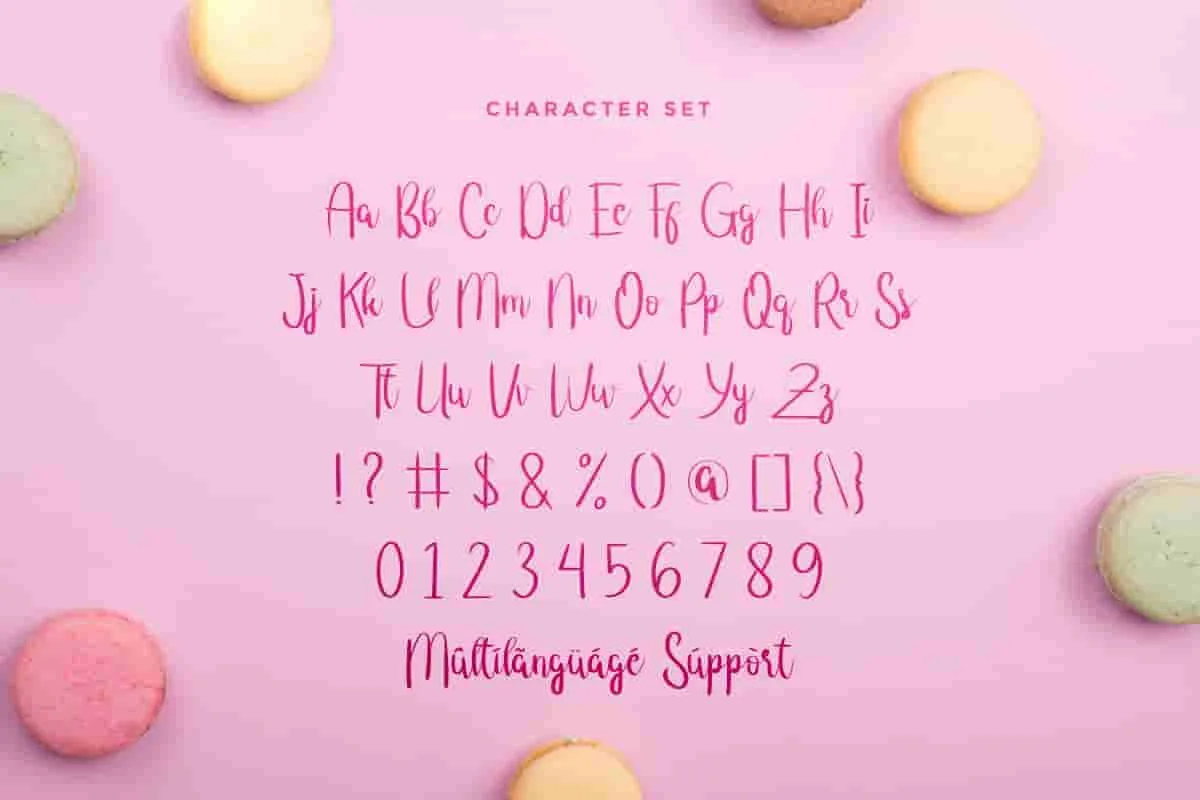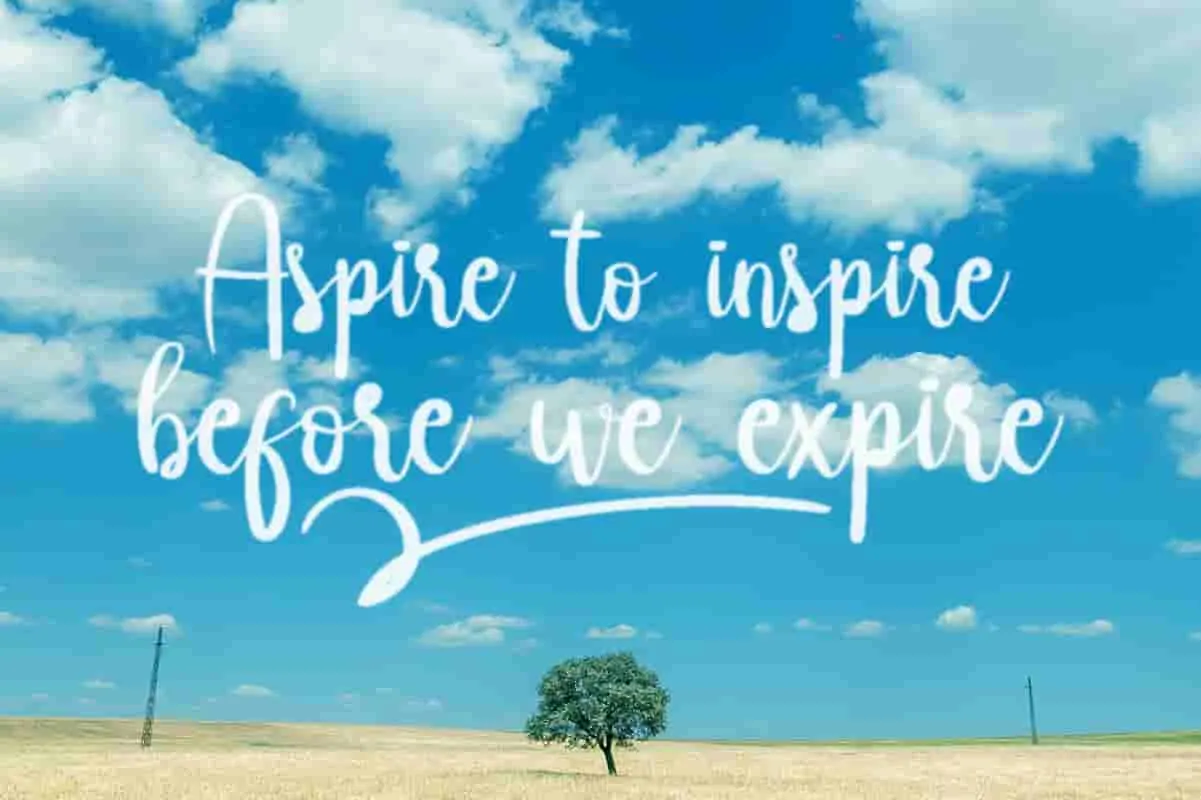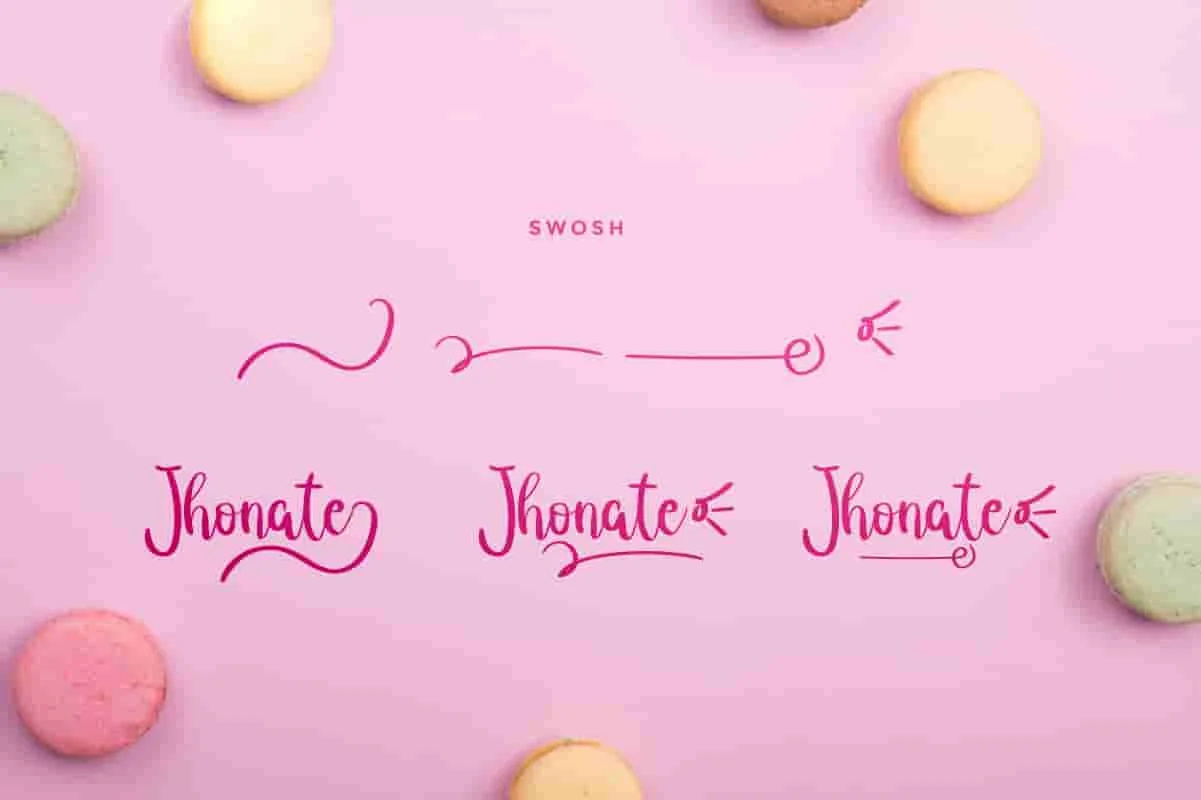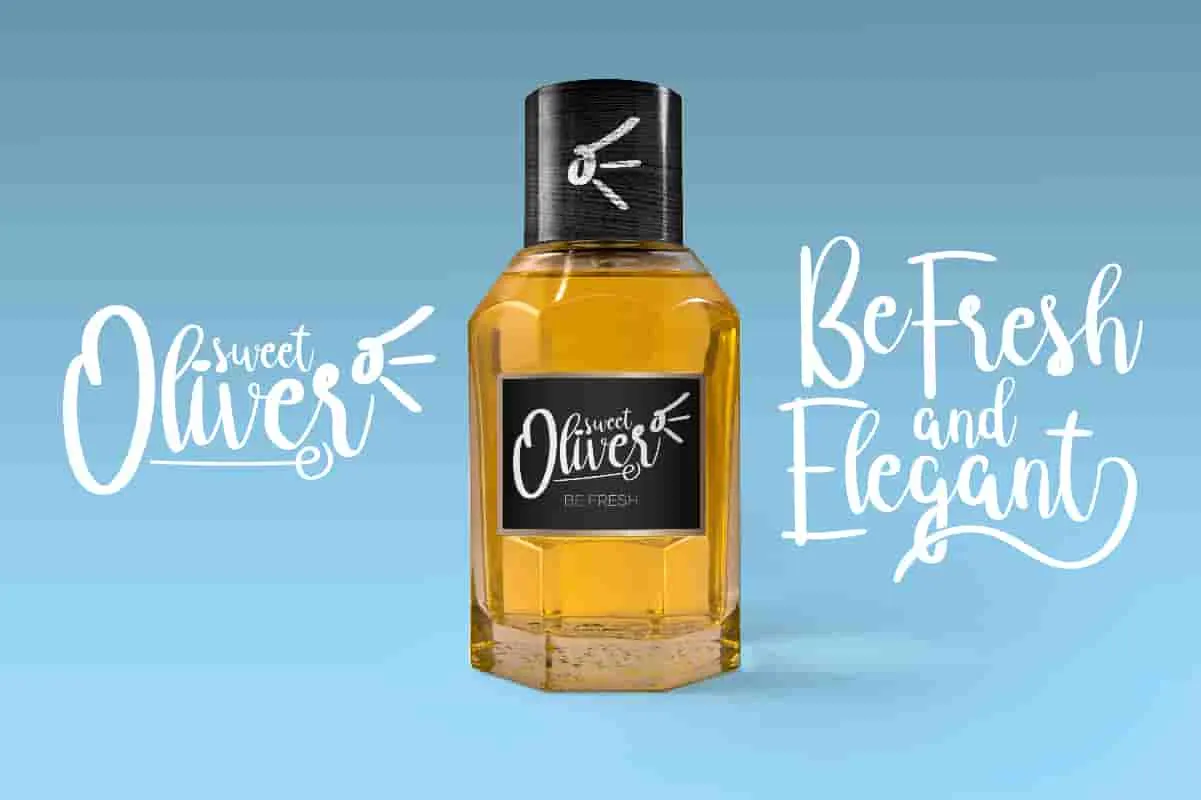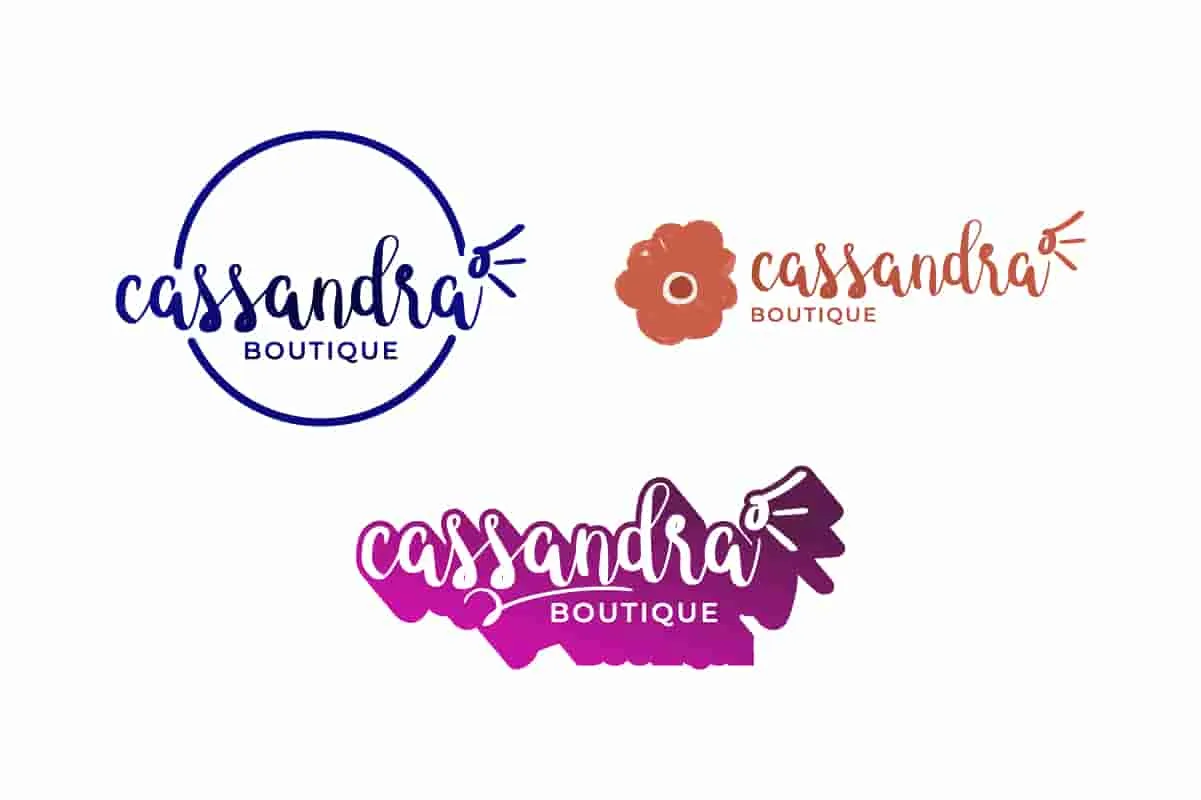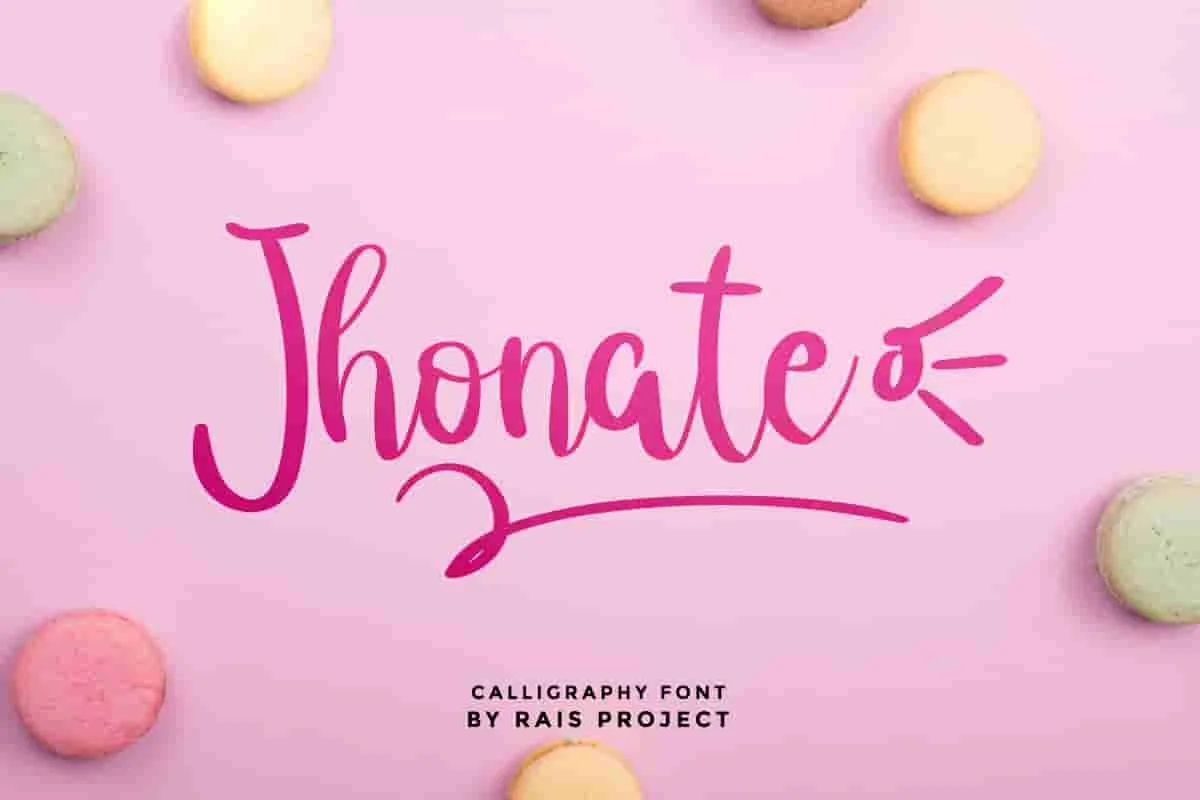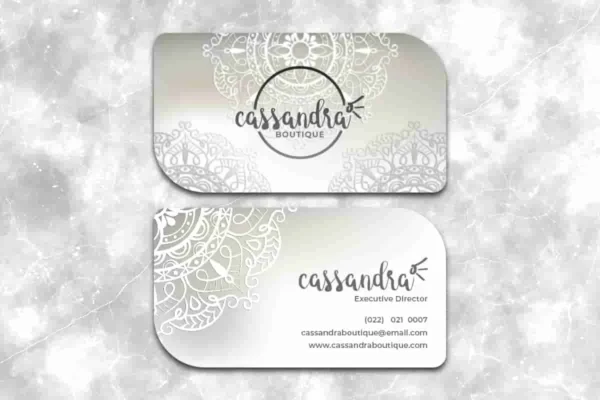
Jhonate handwriting Font
Jhonate Font is a handwriting font by RaisProject. With beautiful characters, it will be stunning for any your special projects including : weddings, promotion, events, branding, advertising etc
Jhonate Font was made in Indonesia by Sarah for RaisProject. The font handcrafted With beautiful characters, it will be stunning for any your special projects including : weddings, promotion, events, branding, advertising, magazine, shopping, signage, invitation, stationery, social media posts, product packaging, product designs, label, photography, watermark or and any projects that need calligraphy handwriting style. Jhonate Font includes full set of gorgeous uppercase and lowercase letters, numerals, a large range of punctuation and ligatures. All letters has realistic hand-lettered style to make it unique yet stunning design. You will get: